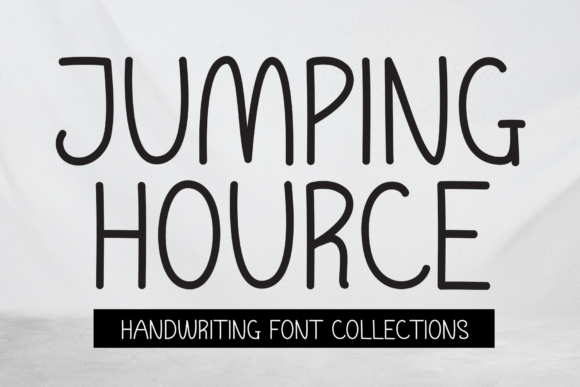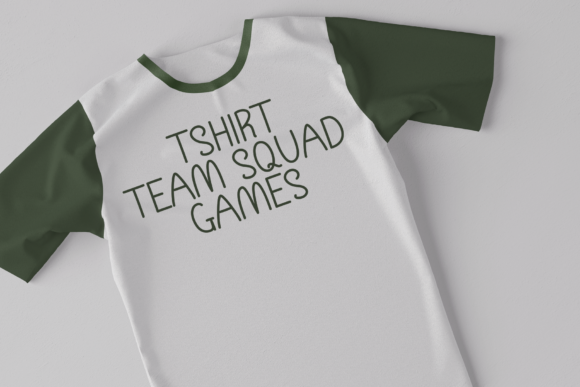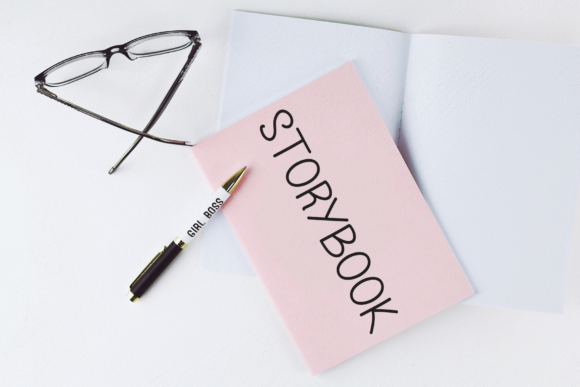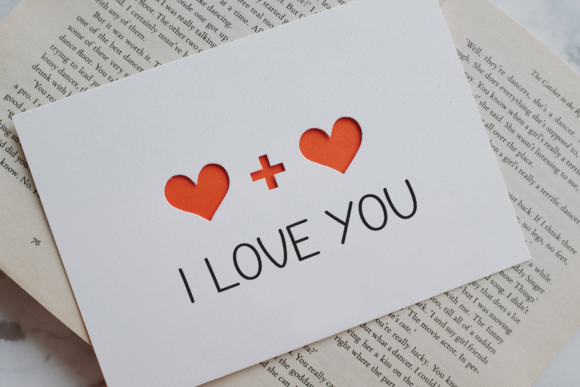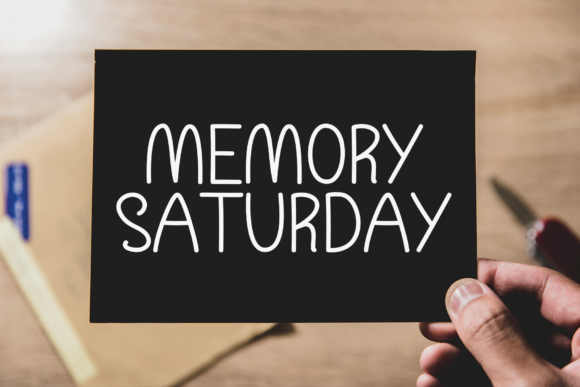
About Jumping Hource Font
“Introducing an elegant script font that embodies a modern touch while maintaining a perfect form. This font is not too thin, nor too thick, striking a balance that is varied and harmonious. It is meticulously designed to enhance the aesthetic appeal of your projects.
This font is a blend of classic and contemporary styles, making it a versatile choice for a wide range of applications. Whether you’re designing a logo, crafting an invitation, or creating a website, this font adds a touch of elegance and sophistication to your work.
The beauty of this font lies in its balance. It’s not overly delicate, which can make text hard to read, nor is it too bold, which can overpower the design. Instead, it strikes the perfect balance, making it a versatile choice for both print and digital projects.
Moreover, the varied strokes of this font add a dynamic feel to your text. The characters are not monotonous or uniform; instead, they have a varied rhythm that makes the text more engaging and visually interesting.
But what sets this font apart is its perfect form. Every curve, every stroke, and every letter has been crafted with precision and care. This attention to detail is evident in the quality of the font, making it a reliable choice for professional projects.
In addition, this font is designed with a contemporary feel in mind. It’s not stuck in the past, but rather, it embraces the trends and styles of today. This makes it a great choice for projects that require a modern and up-to-date look.
In conclusion, this elegant script font, with its contemporary feel and perfect form, is designed to enhance the beauty of your projects. Its balanced and varied style makes it a versatile choice for a wide range of applications. Whether you’re a designer looking for the perfect font for your next project, or a business owner looking to elevate your brand, this font is a superb choice.”